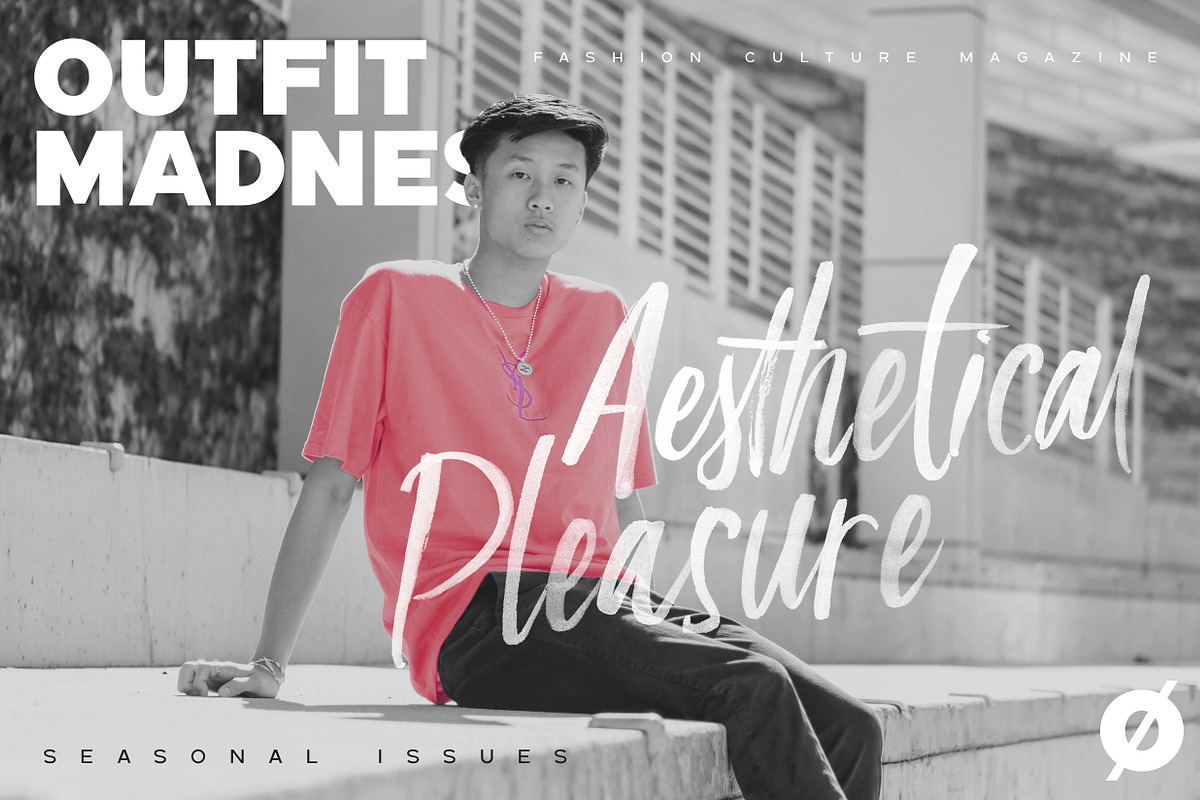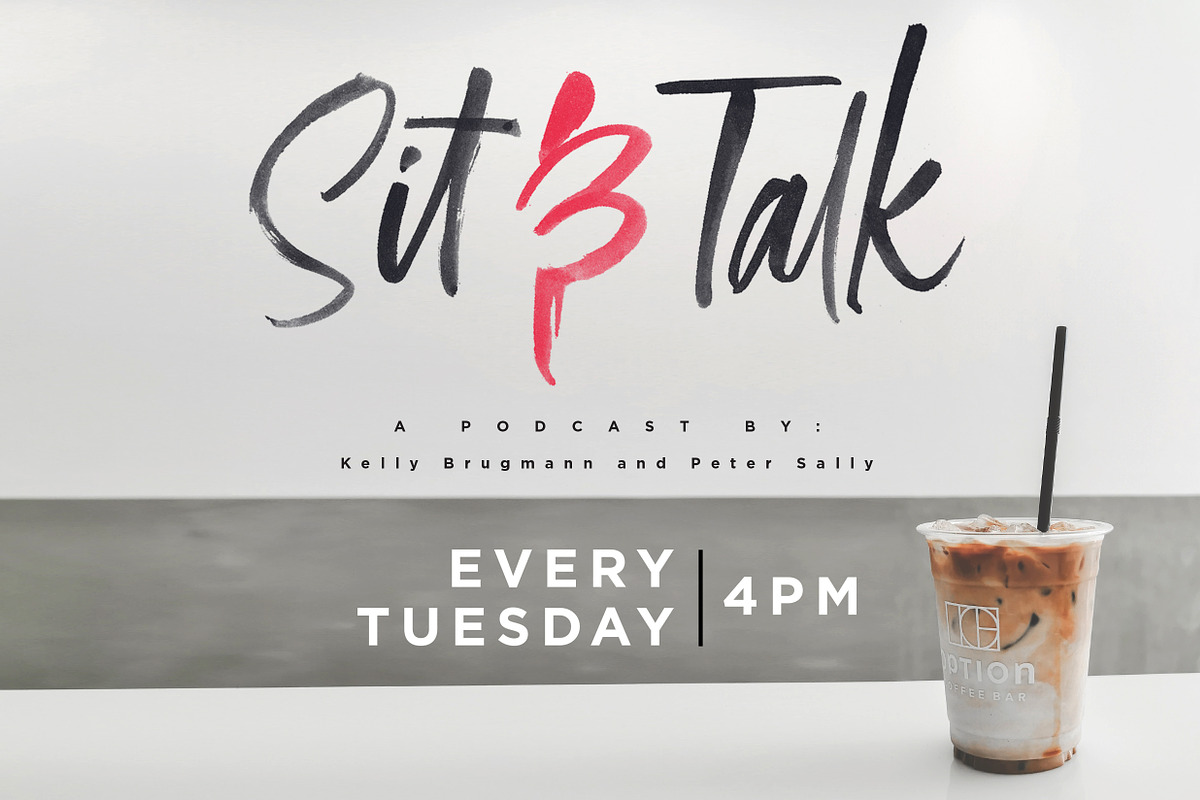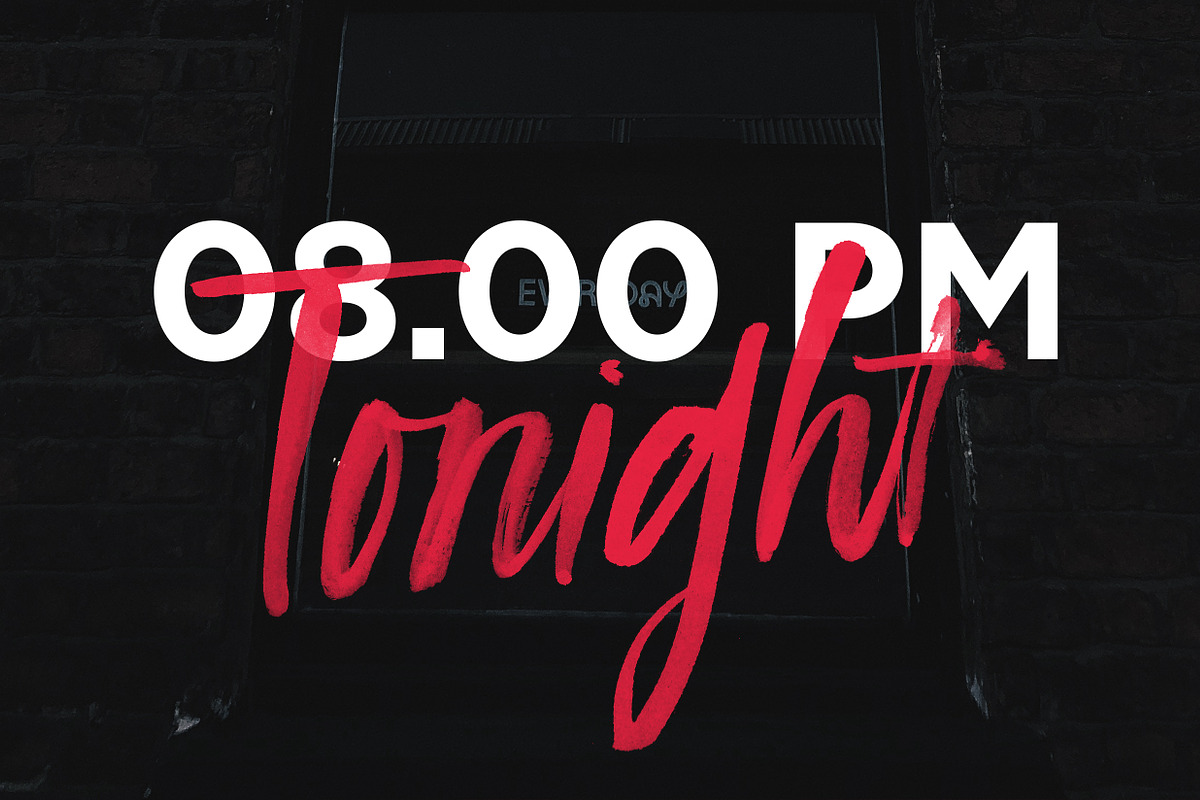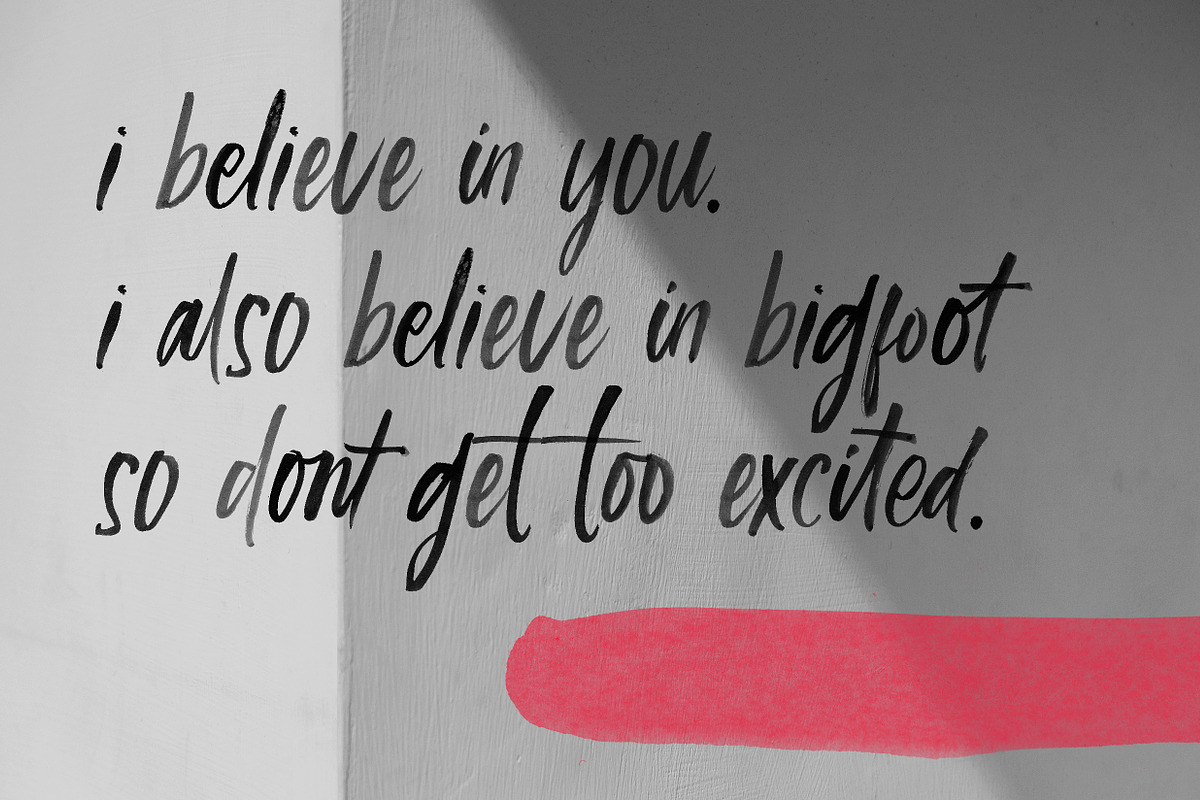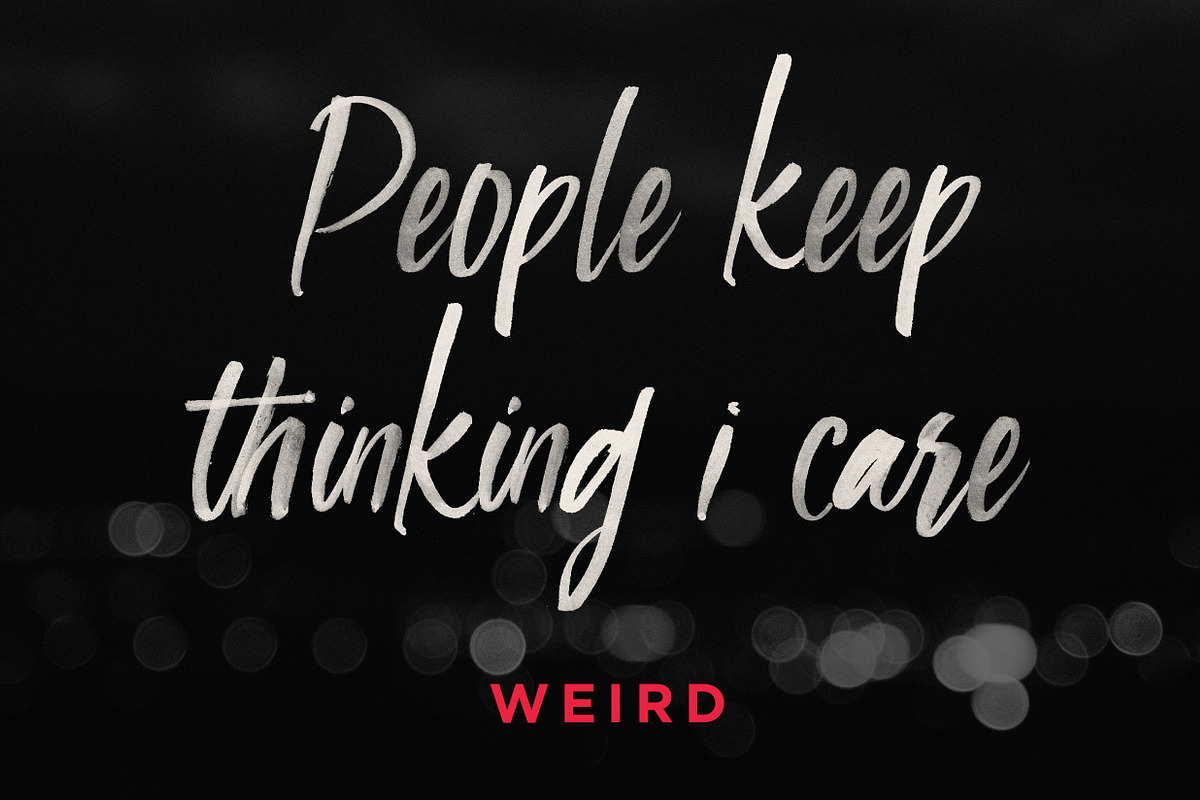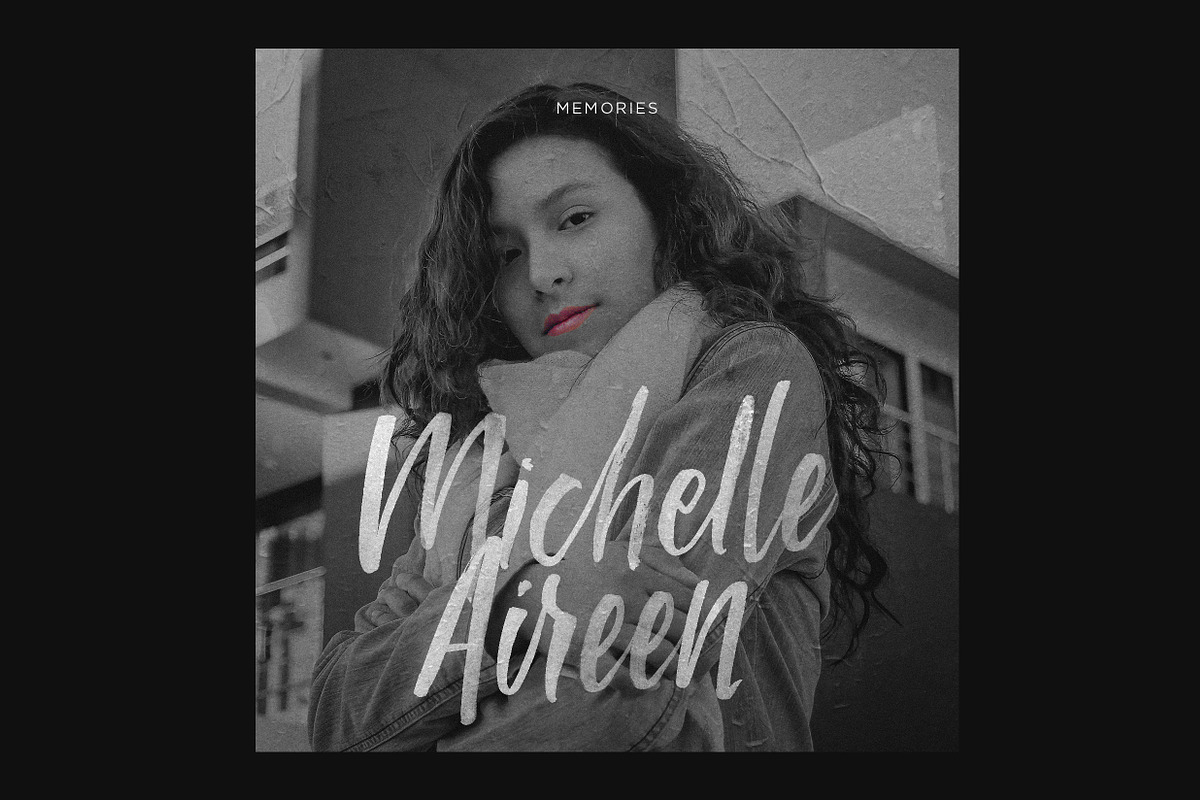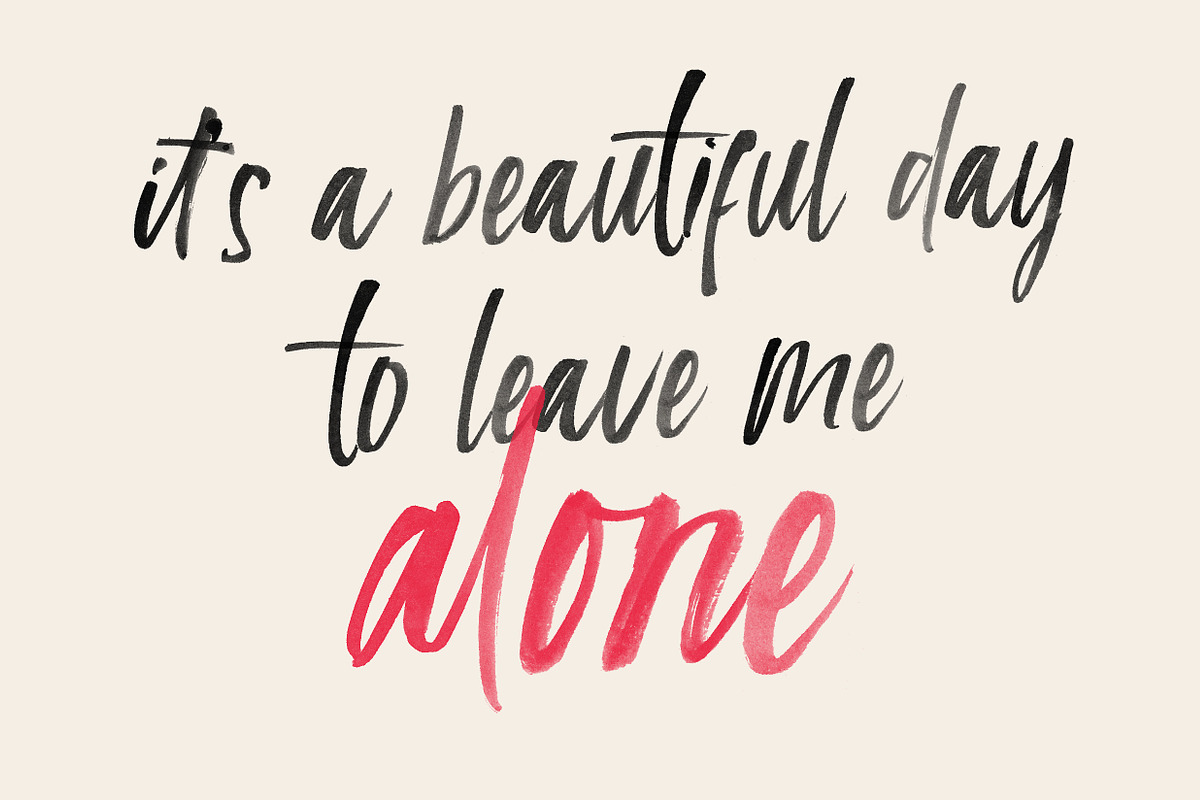
Calisatt - Brush SVG Texture Font
Introducing Calisatt. A fast stroke brush and ink SVG fonts. Comes up in both version, SVG and regular. Packed up with a bunch of ligatures in both version makes this font looks so natural and feels like you’re writing by yourself. Perfectly fit for a title or display, branding, moodboard concept, beauty fashion stuff, etc. Release your youth spirit with this time-saver font.